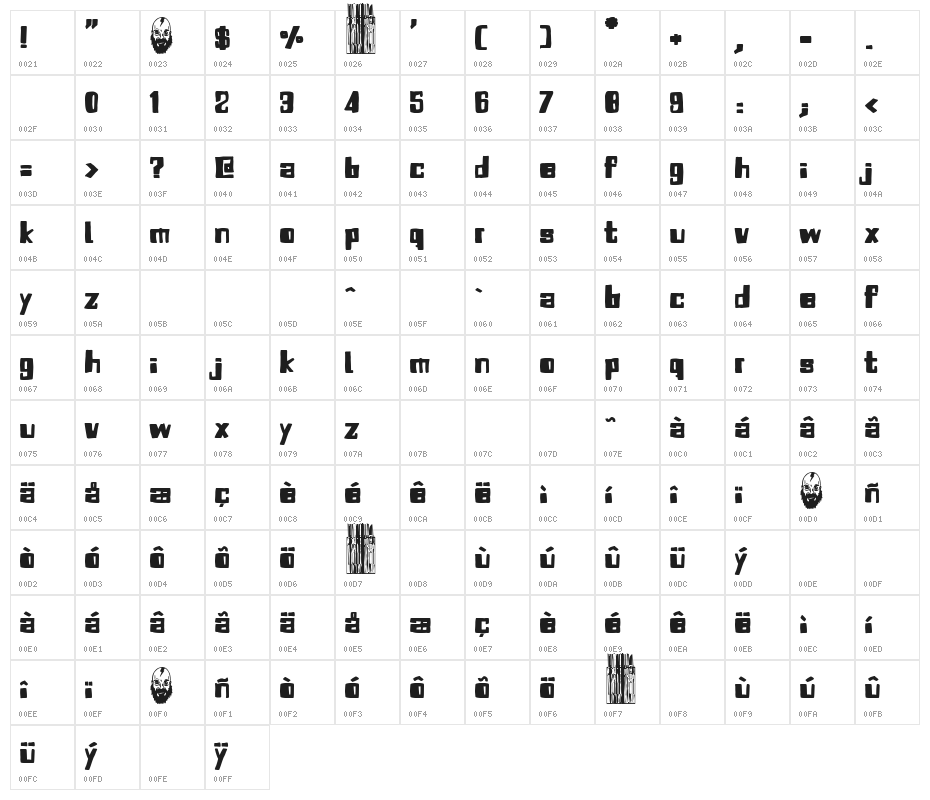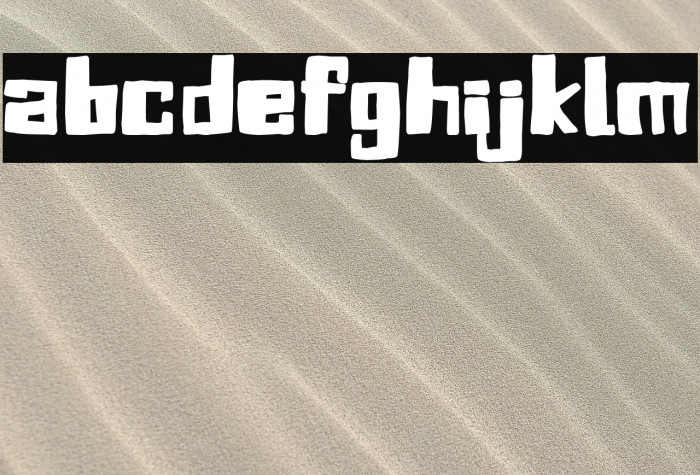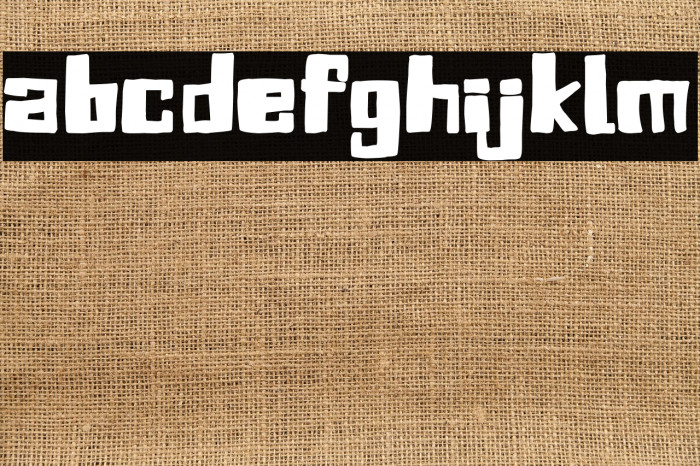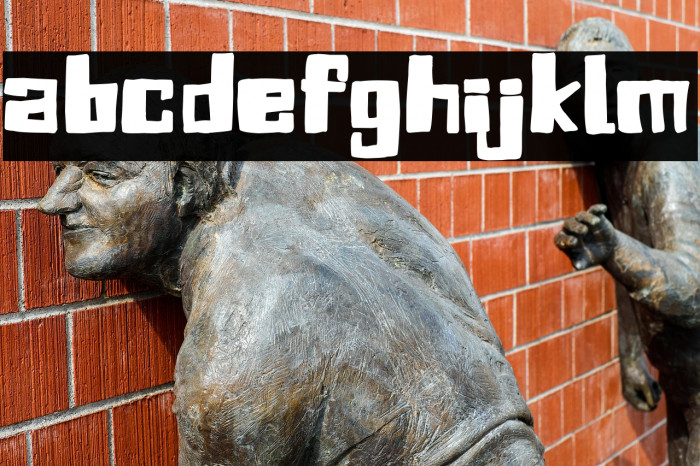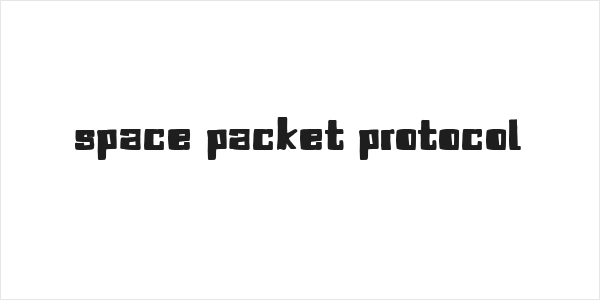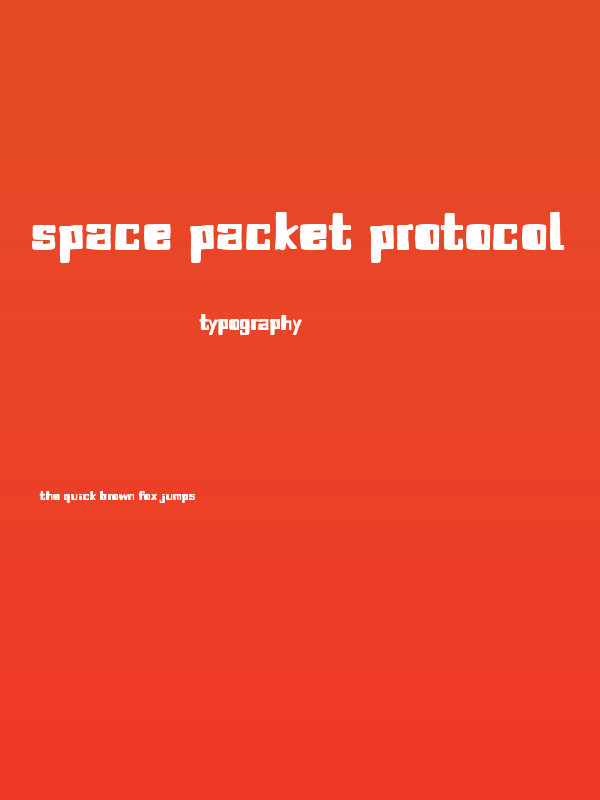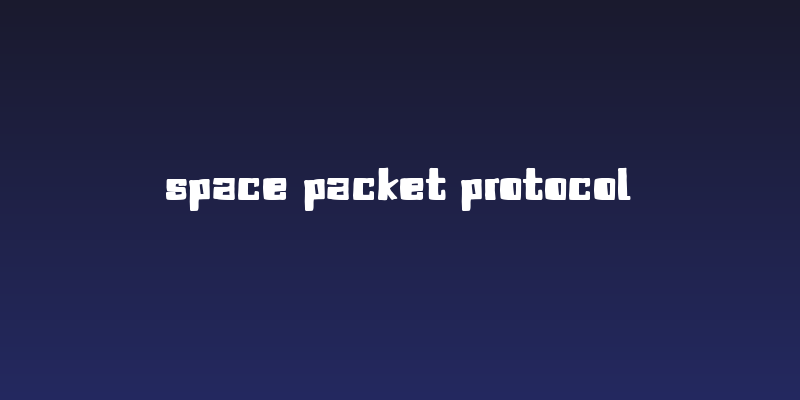
Space Packet Protocol Font
Space Packet Protocol Description
This font features a bold, rugged style with a hand-drawn appearance. The characters are thick and blocky, with uneven edges that give a raw, organic feel. The uppercase and lowercase letters maintain a consistent weight, creating a cohesive look. Numbers and special characters follow the same design, ensuring uniformity across all elements. The font's unique style makes it stand out, perfect for projects that require a strong, impactful visual presence.
| Proposed Projects | Ideal for posters, album covers, branding, and any design needing a bold, artistic touch. |